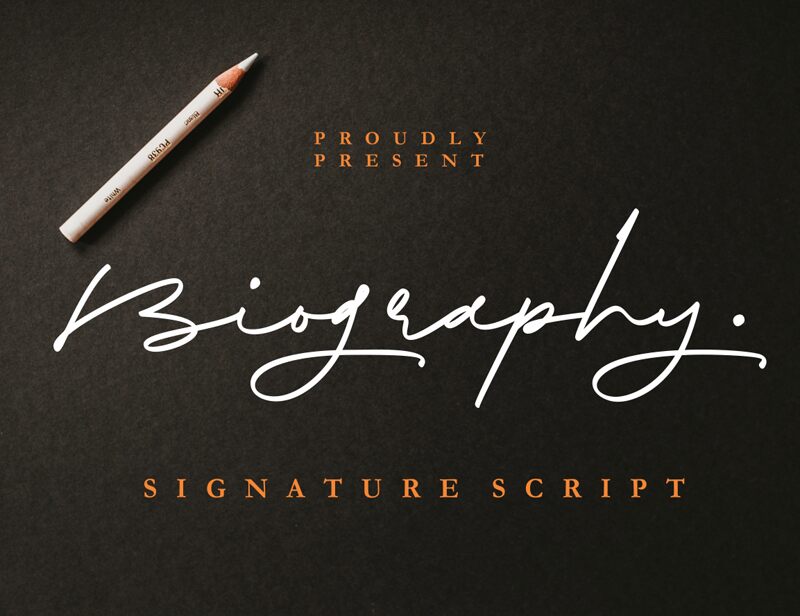
Biography Ink
Biography Ink, designed by Letternun, is a captivating signature font with a semi-light weight. Its elegant curves and flowing strokes add a touch of sophistication to any project.
Perfect for wedding invitations, luxury branding, or personal blogs seeking an exquisite touch, Biography Ink elevates the visual appeal of any text it graces. With its refined and unique style, this font brings an air of elegance and refinement to your designs. Whether used in print or digital media, Biography Ink will leave a lasting impression on your audience.